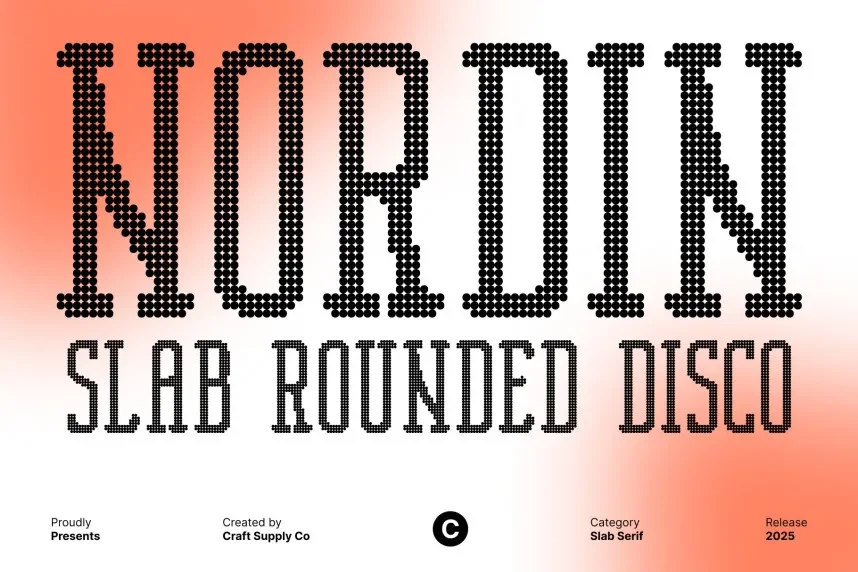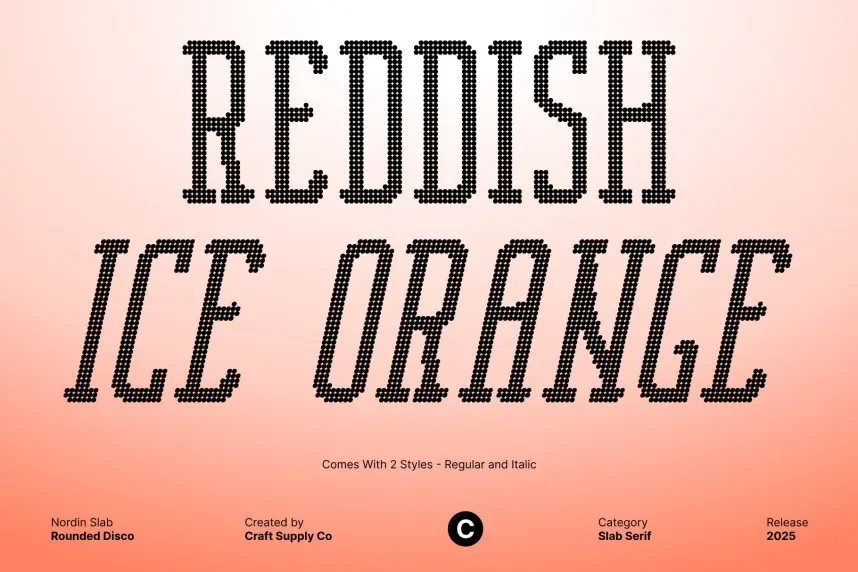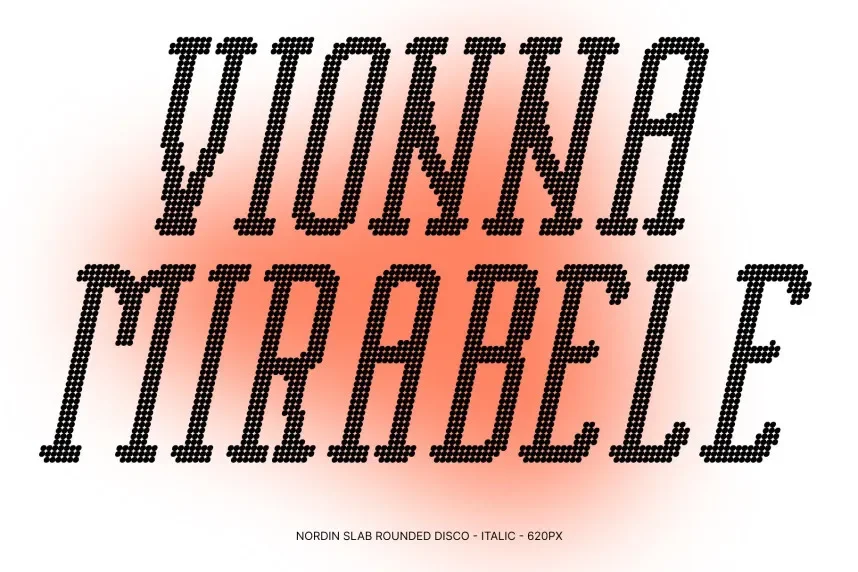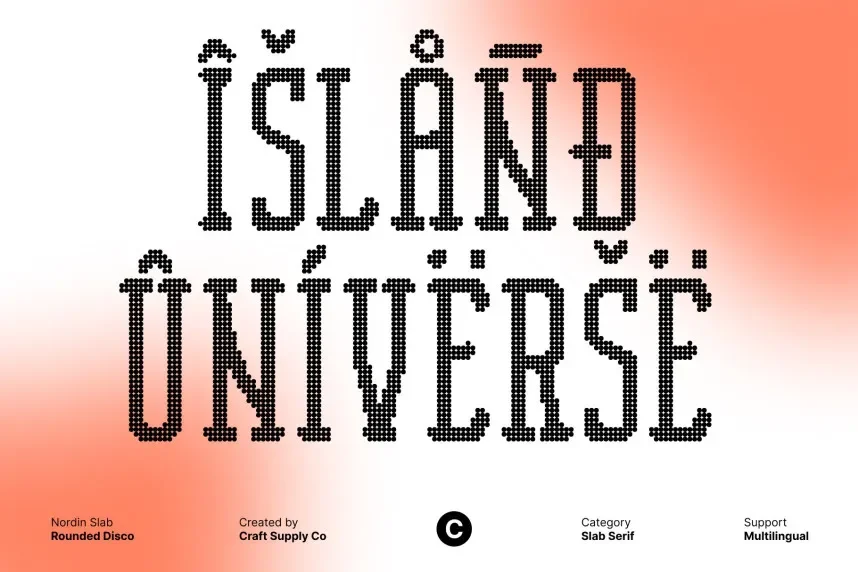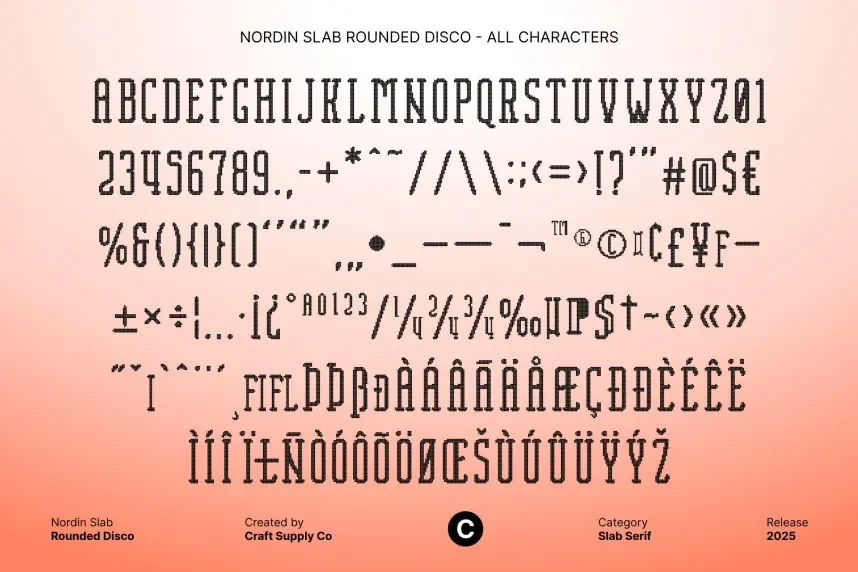
Nordin Slab Rounded Disco Font addresses the need for playful, retro typography that remains readable. Many disco-style fonts sacrifice clarity for decoration.
Nordin Slab Rounded Disco is a slab serif display font with rounded terminals, heavy strokes, and wide proportions. The slab serifs add structure while the rounded forms soften the overall appearance.